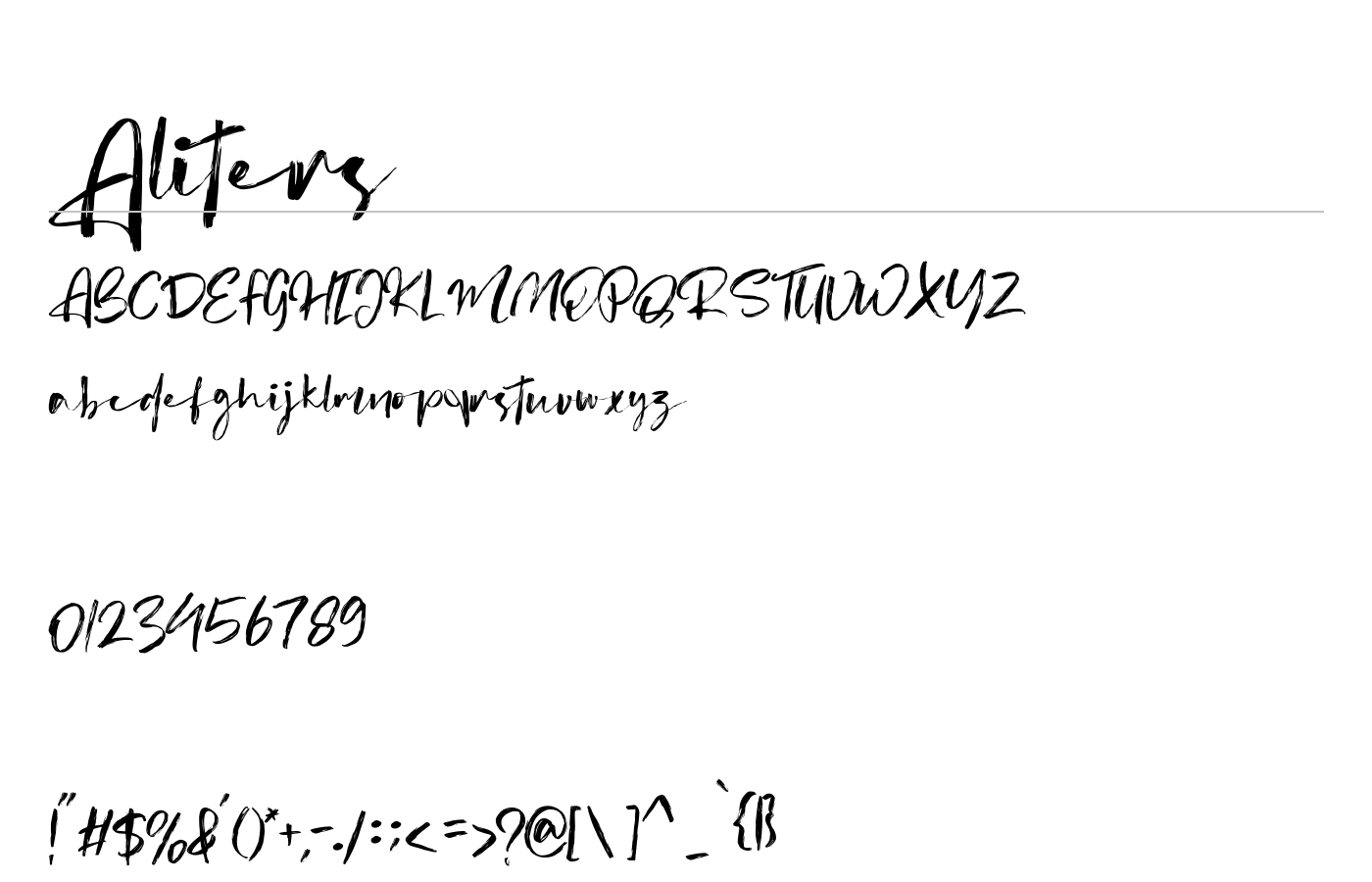
Aliters is a lively, hand-drawn script font that features a textured brushstroke style with irregular, organic shapes, giving it an artistic and casual feel. It works beautifully for creative branding, invitations, and expressive headlines where a personal, handcrafted touch is desired. This font’s energetic and imperfect charm makes it perfect for projects that want to convey warmth and creativity.
Aliters Font
About Aliters Font
| Font family | Aliters Font |
| Designer | Vultype Co |